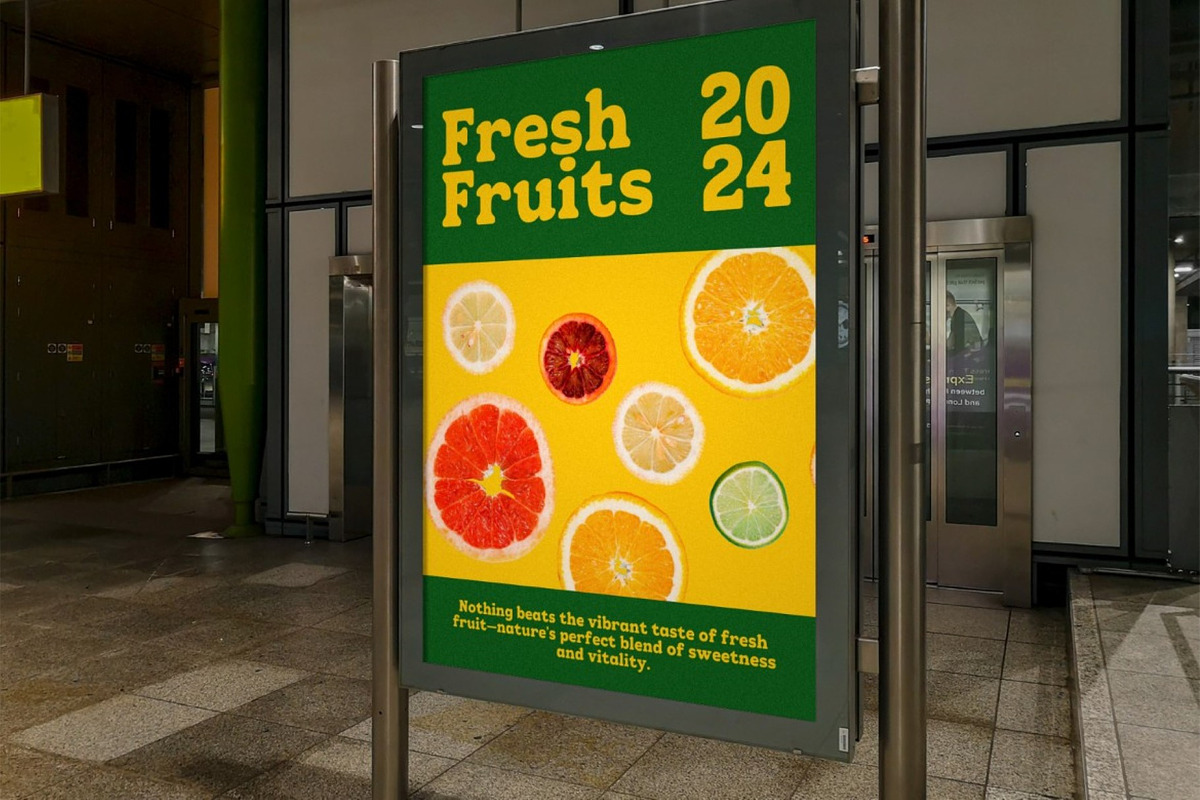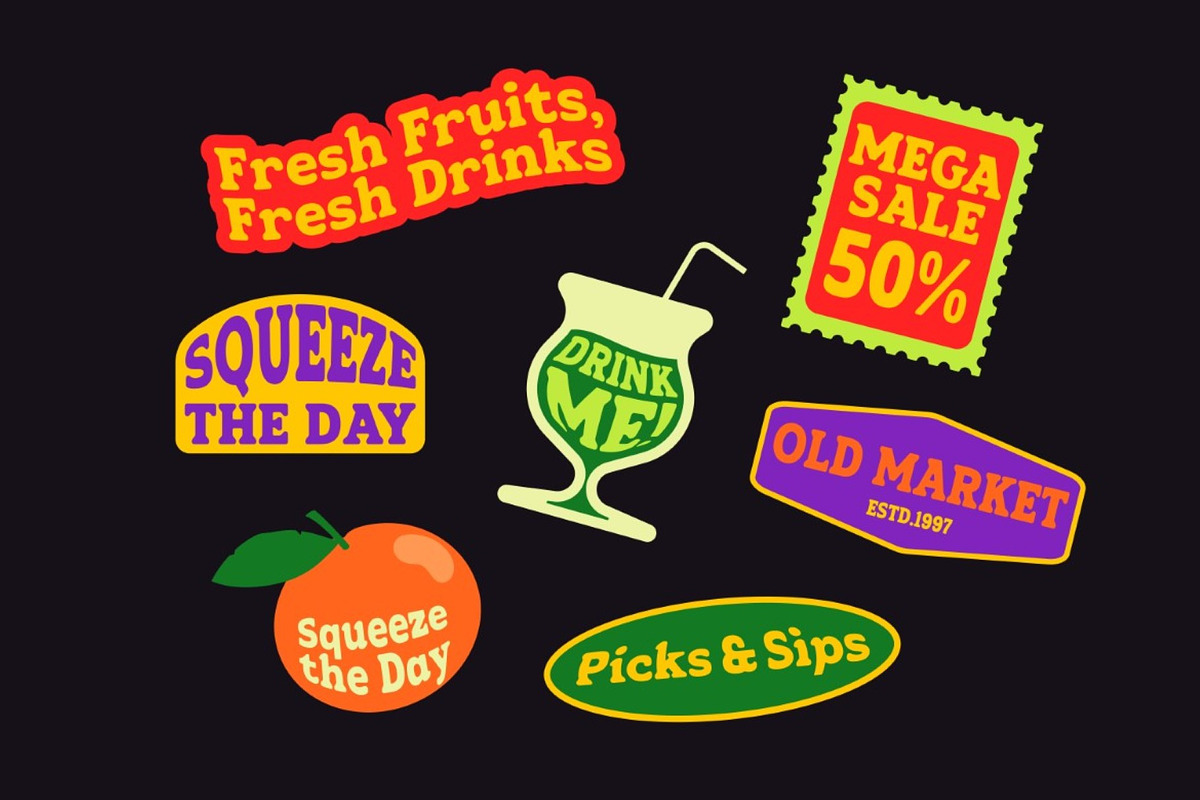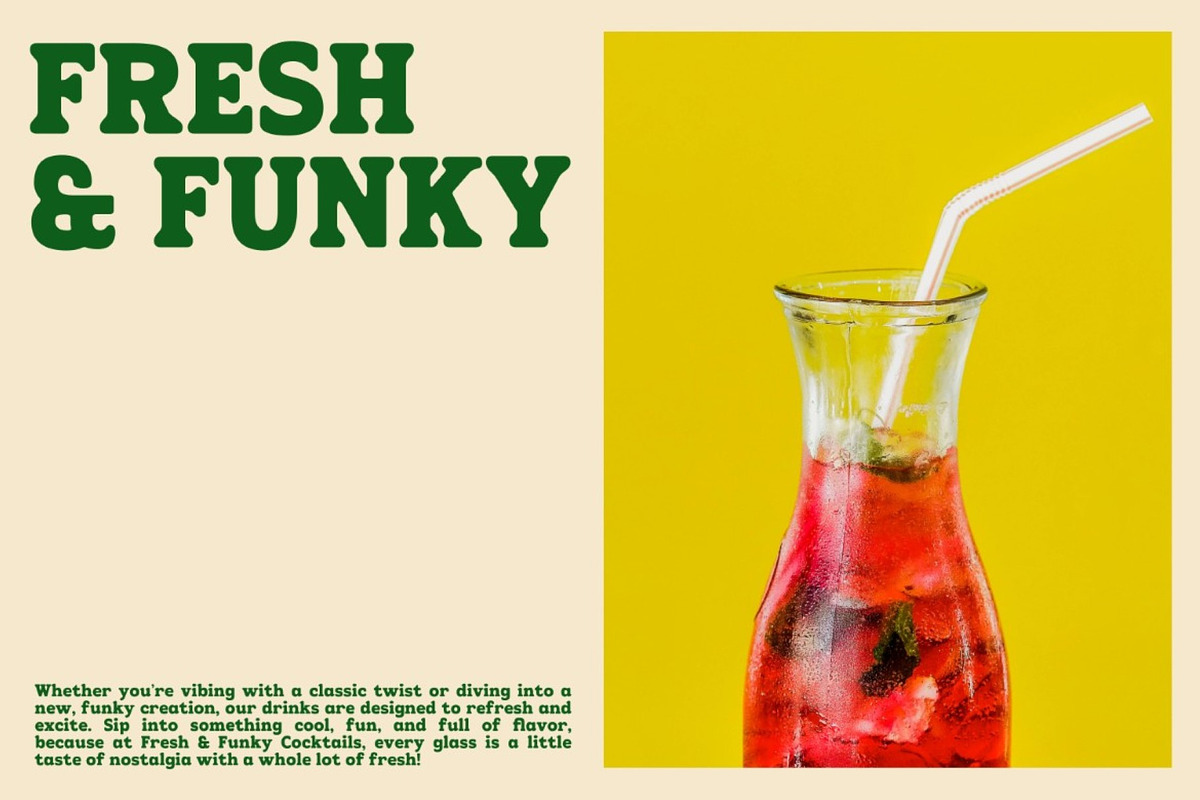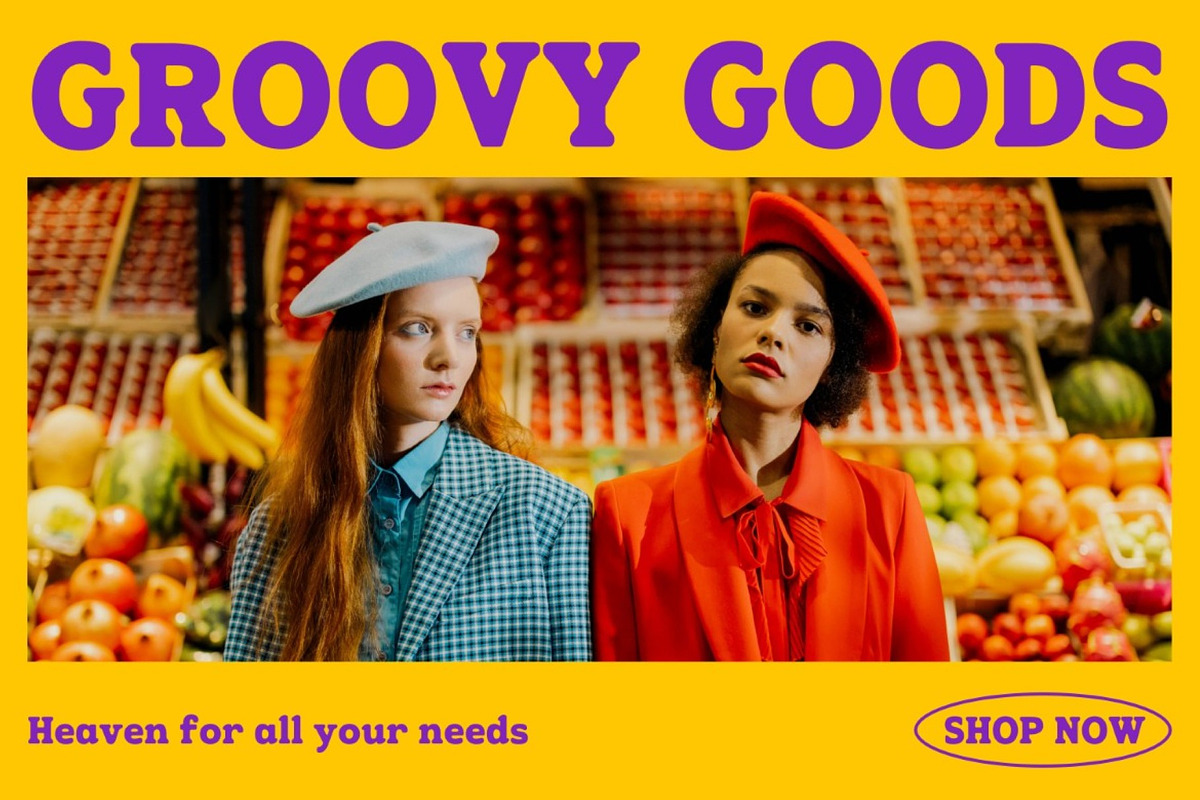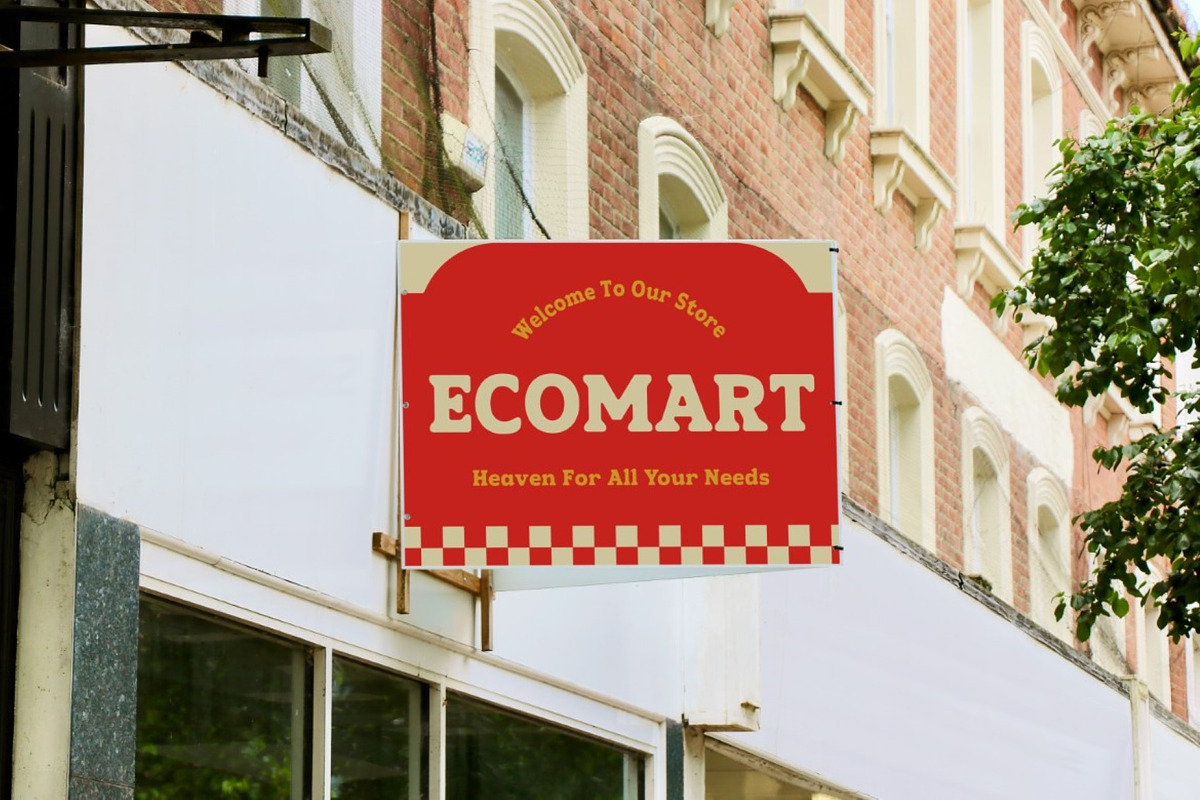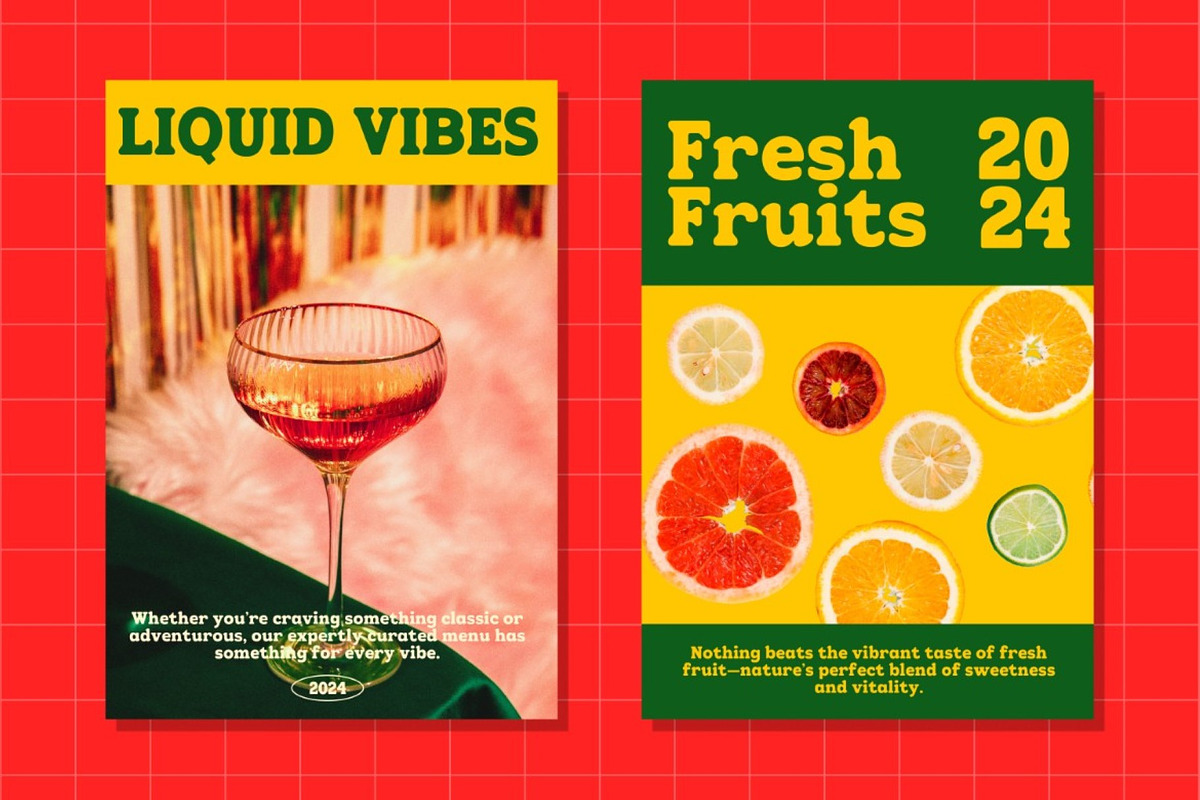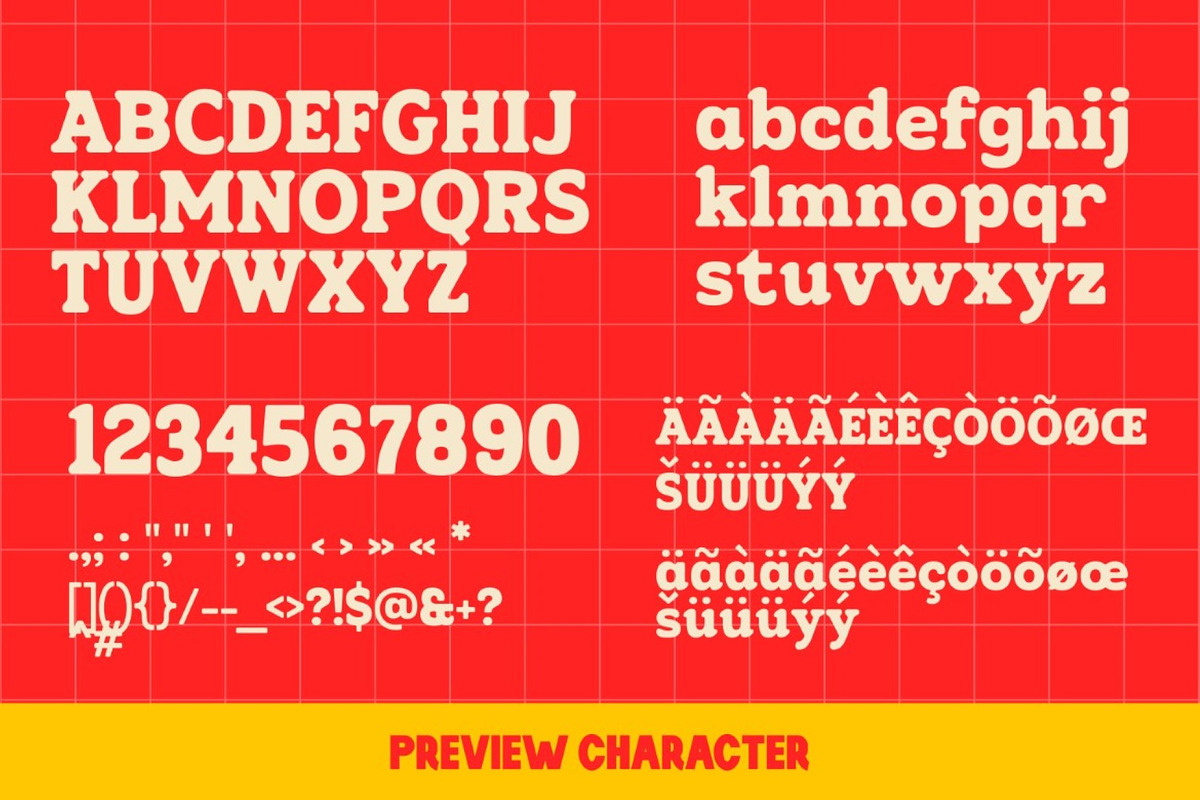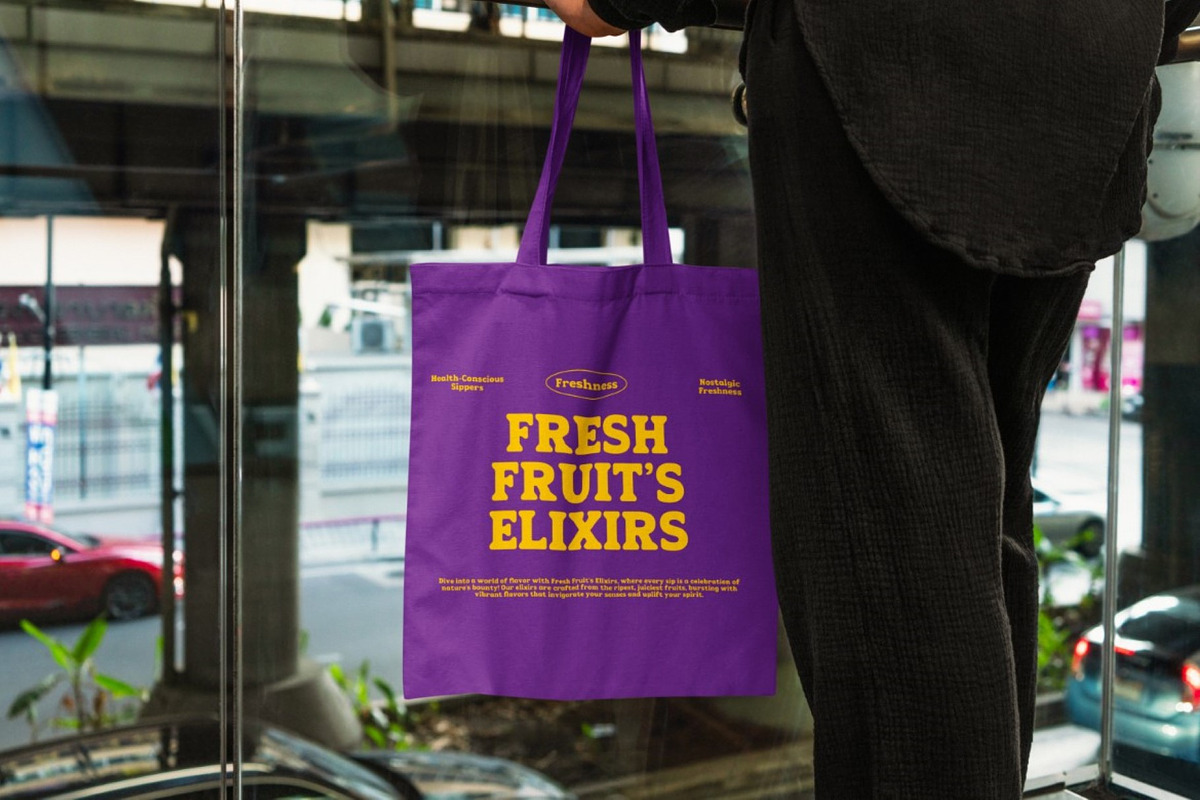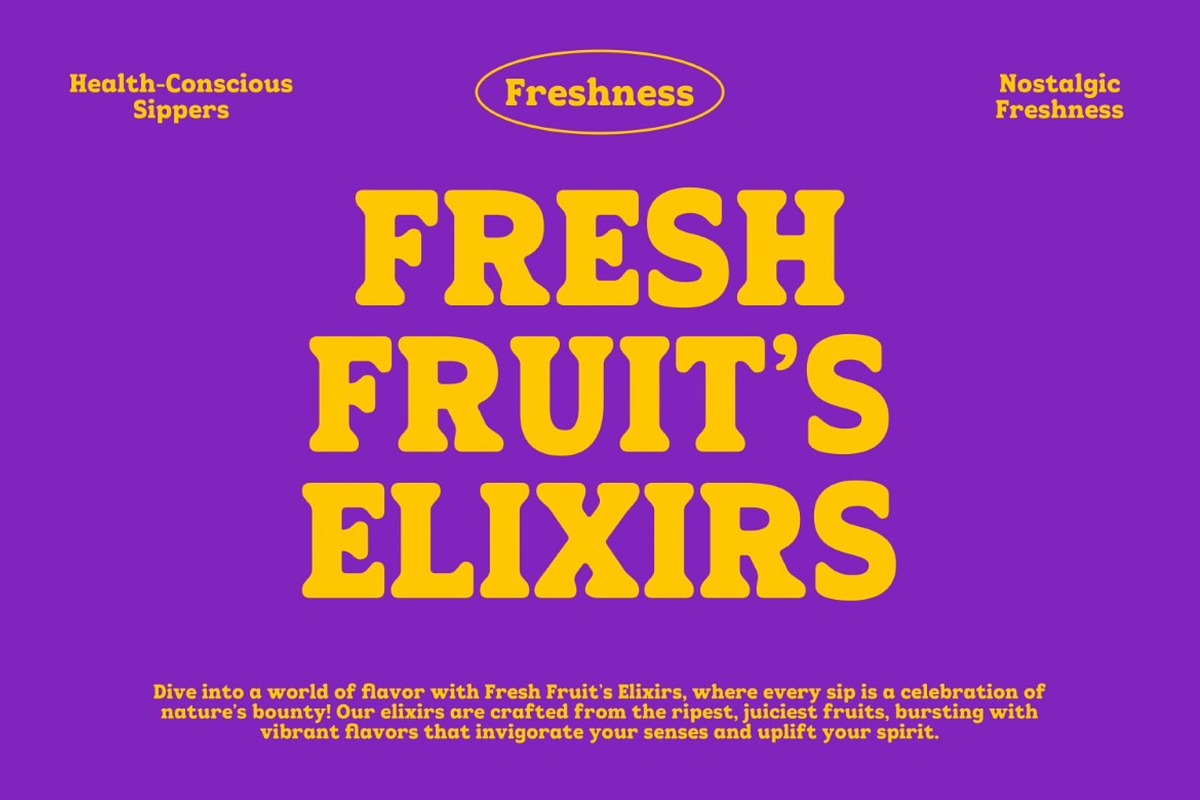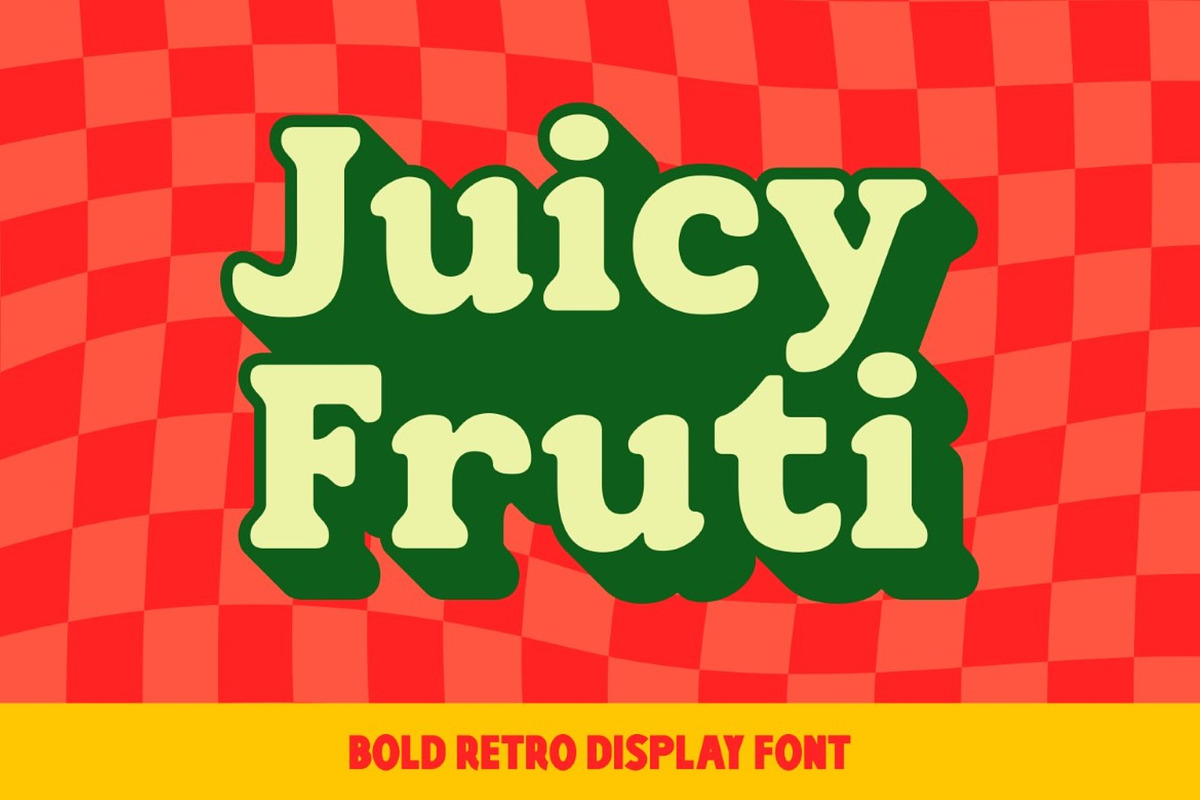
Juicy Fruti - Bold Retro Display Fon
Juicy Fruty is a bold and retro display font that will add a burst of vintage flavor to your designs. Its playful curves and vibrant colors are reminiscent of classic 70s and 80s aesthetics. Perfect for creating eye-catching logos, posters, and packaging designs, Juicy Fruity is sure to make a statement.